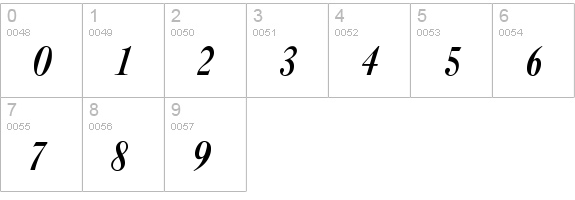
New Caslon Italic Font Details
New Caslon Italic is a distinctive, italic variant in the New typeface family \xE2\x80\x94 well suited to design and typography projects.
Introducing the elegant and timeless New Caslon Italic font, a versatile typeface that exudes sophistication and charm. Its graceful slanted design adds a touch of flair and style to any project, making it perfect for both formal and creative applications. The New Caslon Italic font features delicate serifs and fluid lines that create a sense of movement and grace on the page. Whether used for invitations, branding, or editorial design, this font will elevate your work with its classic yet modern aesthetic. Best of all, the New Caslon Italic font is completely free to download at FontsMarket.com. Now you can add this beautiful typeface to your collection without any cost, making it a valuable resource for designers, creatives, and typophiles alike. Don't miss out on the opportunity to enhance your projects with the exquisite New Caslon Italic font - download it now and elevate your designs to new heights.